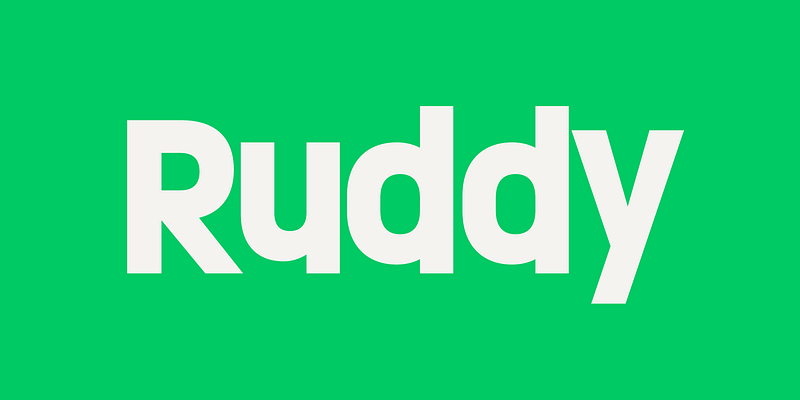
Ruddy Font Free Download
Ruddy Font Free Download is a bold, dynamic typeface with strong character and modern appeal. Its sharp angles and geometric design give it a contemporary edge, making it perfect for projects that require a statement-making presence—such as logos, posters, headlines, branding, and tech-related designs.
The font’s powerful design ensures that it stands out in both large and small sizes. Whether you're designing for print or digital media, Ruddy brings confidence and clarity to your text, making it ideal for attention-grabbing applications.